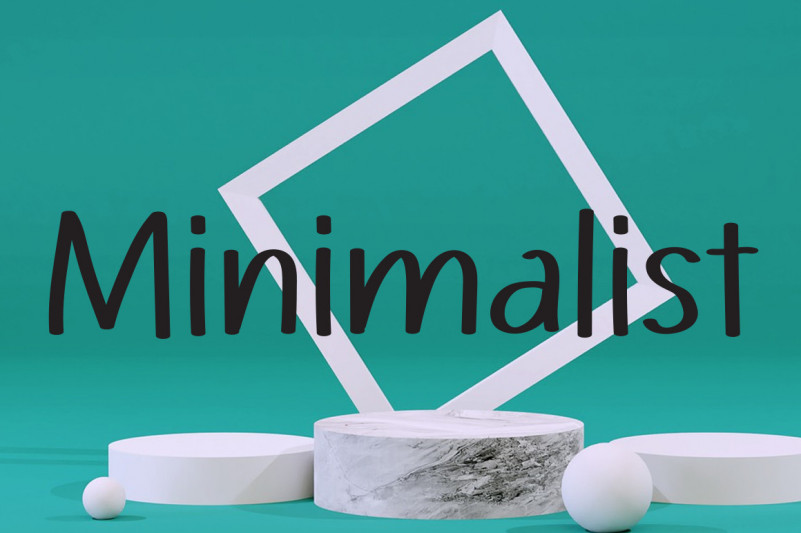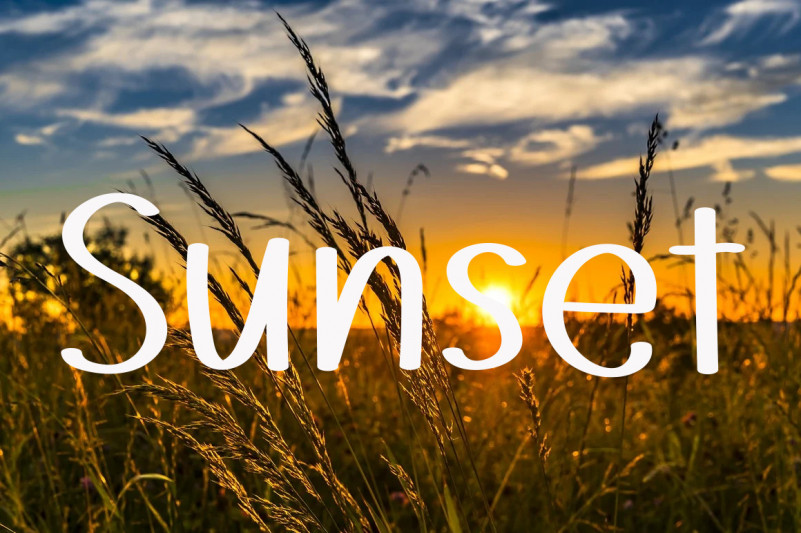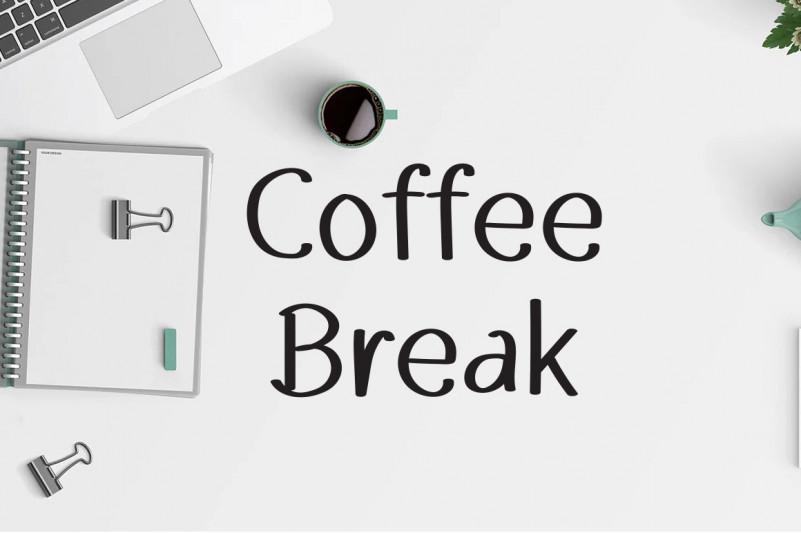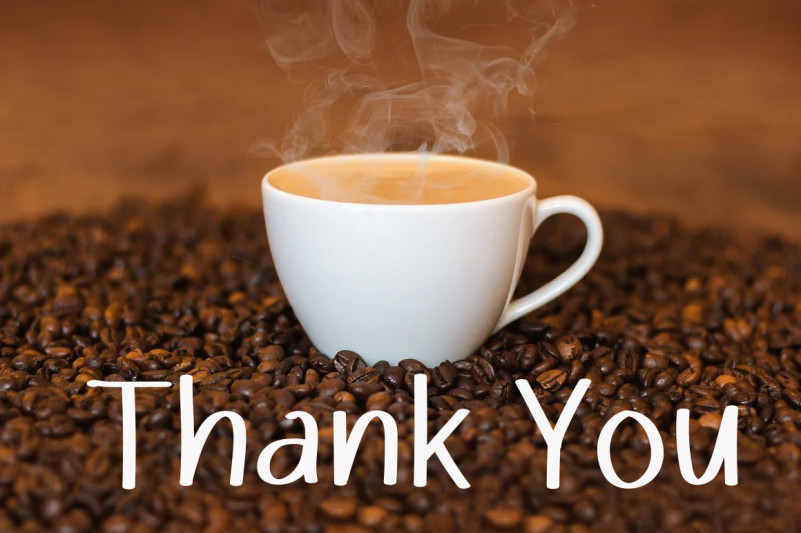
Minimalist Flowers Font is a friendly handwritten font. Beautifully clear and cursive, this font is here to make your creations seem out of this world! Fall in love with this font and use it in your most creative projects!